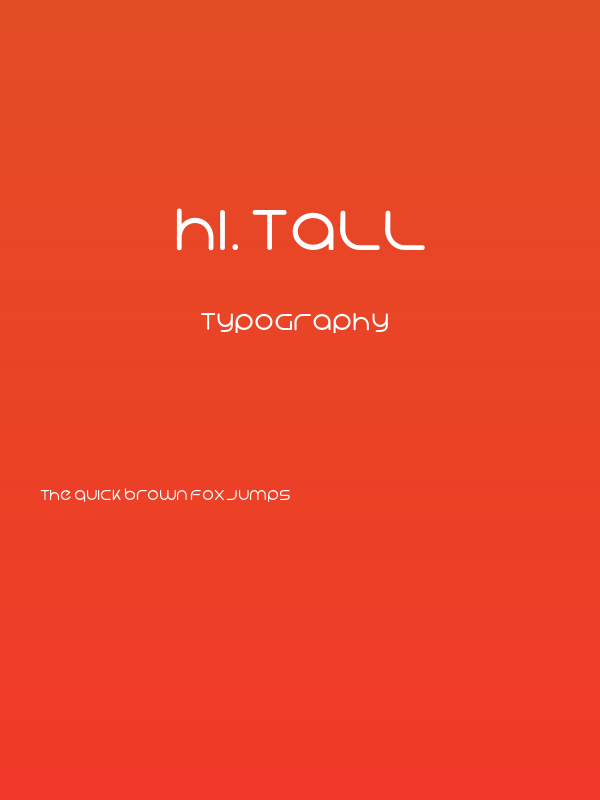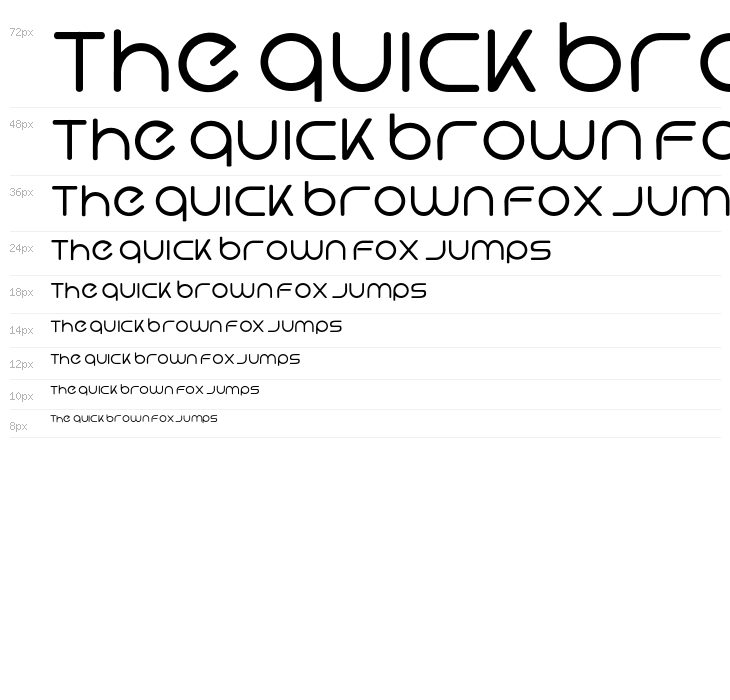
Hi. Tall Font
| Caz de utilizare | Logos, Headlines, Web design |
| Proiecte propuse | Ideal for tech branding, modern web design, and minimalist posters. |